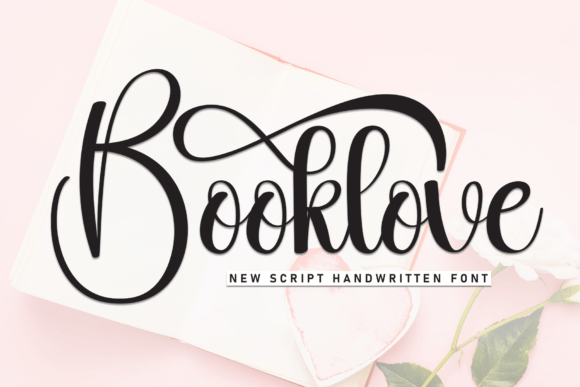
The Power of Booklove Font: Adding Warmth and Personality to Your Designs
Have you ever been in the middle of a design project, and suddenly, you’re stuck on finding the perfect font? I recall a particularly frustrating experience when a client requested a custom invitation for a wedding, and I just couldn’t find a font that captured the warmth and coziness they wanted. That’s when I discovered Booklove Font, a charming handwritten font that instantly brought a sweet, personal touch to my designs.
A Personal Review of Booklove Font
As a designer, I’m always on the lookout for fonts that can elevate my projects and make them more engaging. Booklove Font has become a staple in my font library, and here’s why:
- ✨ Smooth, flowing strokes that give your designs a friendly, approachable feel
- ✅ Perfect for invitations, greeting cards, and cozy branding projects
- ✅ Easy to read, even in smaller sizes
- ✨ A wide range of OpenType features, including glyphs and stylistic alternates
However, no font is perfect, and Booklove Font has a few minor quirks:
- 🤔 Some characters may not work well in very large or very small sizes
- ⚠️ Limited support for non-English languages
- Experiment with OpenType features, such as glyphs and stylistic alternates, to add more personality to your text
The Story Behind Booklove Font
Booklove Font was created by a talented type designer who wanted to craft a font that captures the warmth and personality of handwritten text. Inspired by classic novels and vintage book covers, Booklove Font is designed to evoke a sense of coziness and friendliness. Whether you’re a designer, crafter, or creative hobbyist, Booklove Font is sure to become a favorite in your font library.
| What type of projects is Booklove Font best suited for? | Booklove Font is perfect for invitations, greeting cards, cozy branding, and any project that requires a warm, personal touch. |
| Does Booklove Font support OpenType features? | Yes, Booklove Font supports a range of OpenType features, including glyphs and stylistic alternates. |